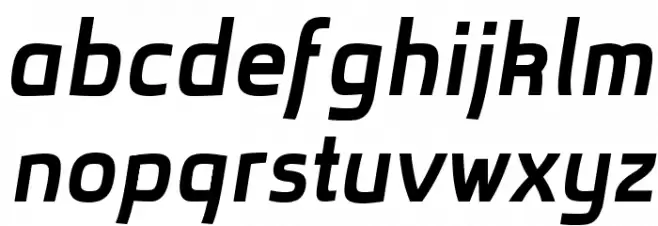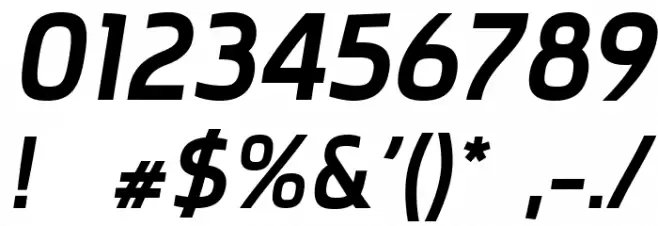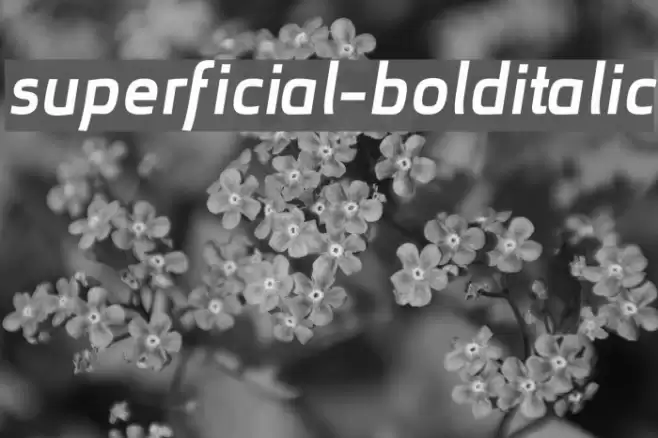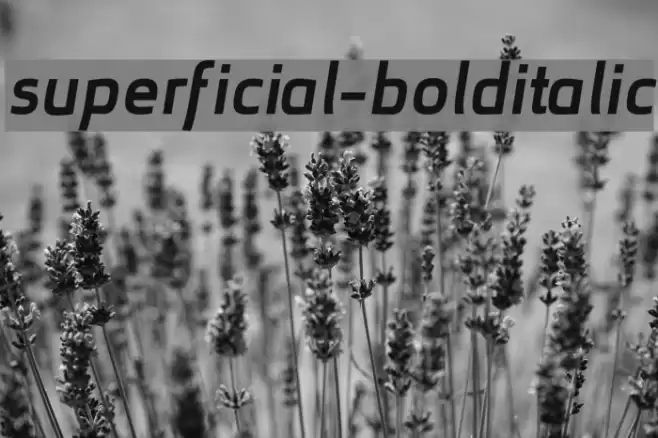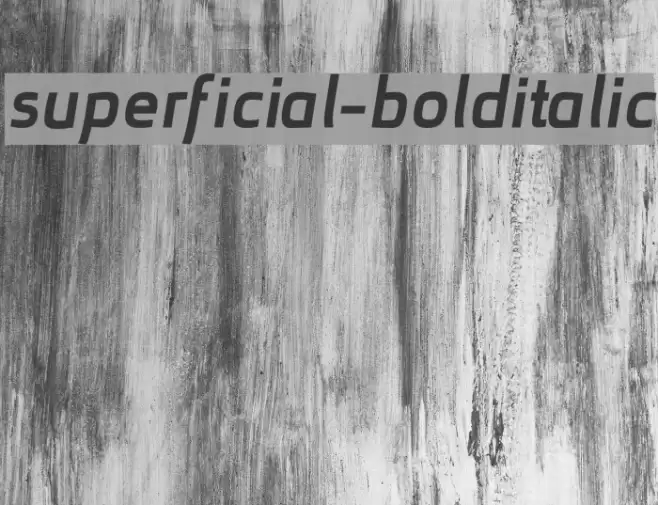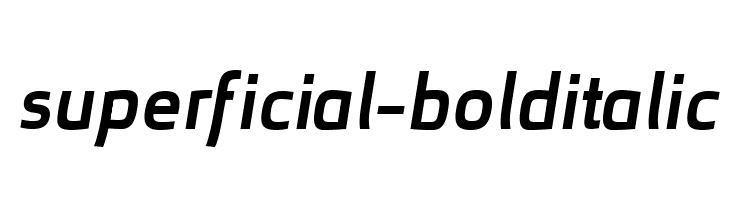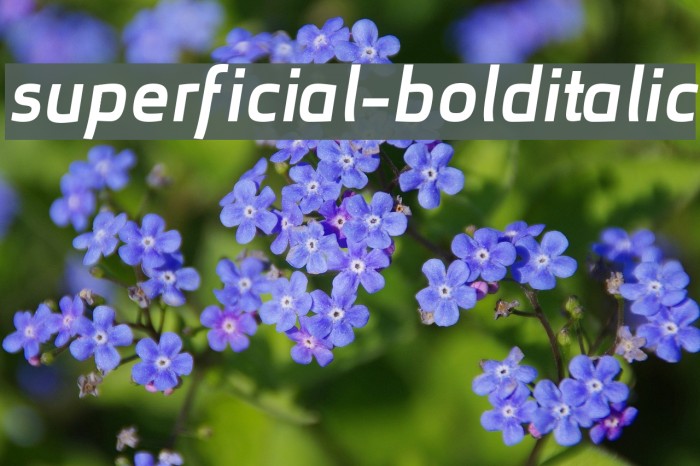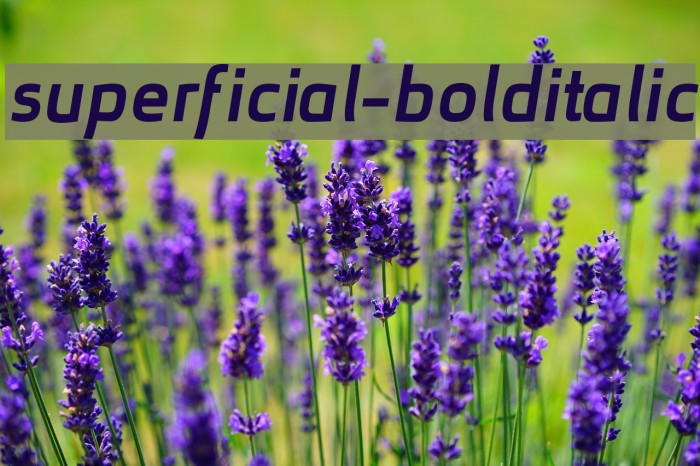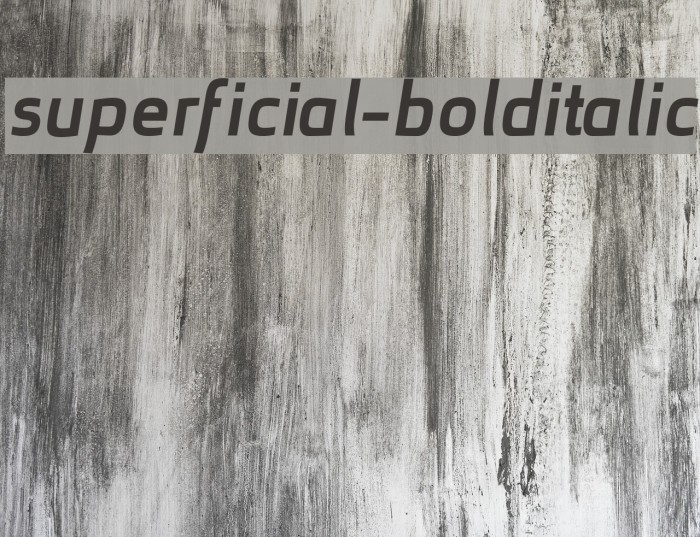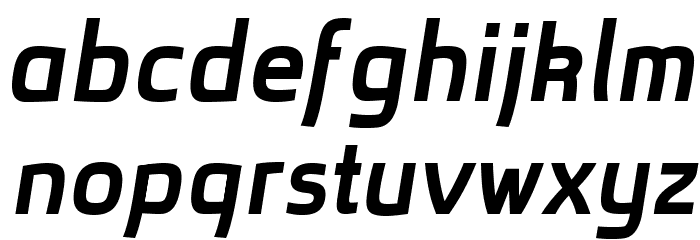
superficial-bolditalic
This font features a bold and italicized style, combining strength with a dynamic slant. The characters are slightly condensed, giving a modern and sleek appearance. The uppercase letters are tall and commanding, while the lowercase letters maintain a consistent flow with a slight forward tilt, enhancing readability. The numerals are clear and robust, matching the overall boldness of the typeface. Special characters are well-defined, ensuring versatility in various contexts. The consistent stroke width across characters provides a uniform look, making it suitable for impactful designs.
A bold, italicized font with a modern and sleek appearance.
- Proposed Projects: Ideal for branding, advertising, and headlines where a strong and modern impression is needed.
- Width: Condensed
- Use Case: Headlines, Logos, Branding